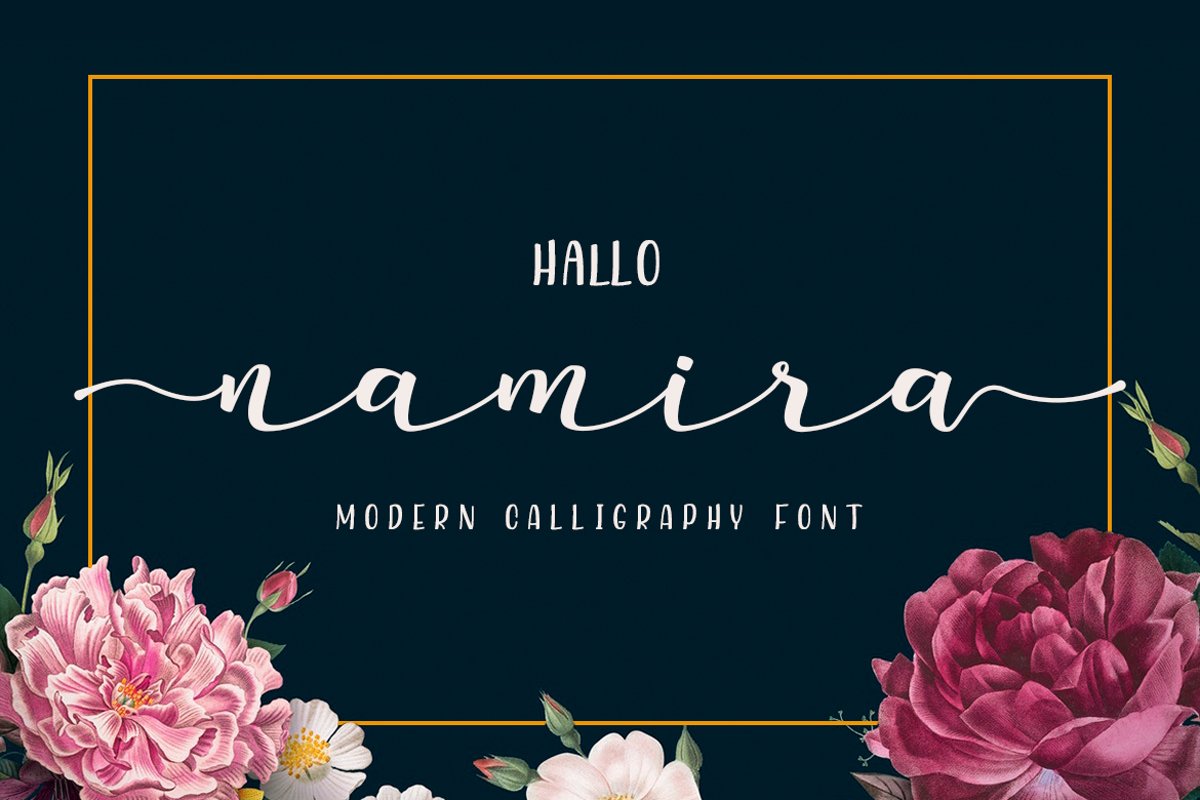
Namira | Modern Calligraphy Script Font
Namira
Namira is Handwritten Calligrapy Font that will turn your designs into simple and beautiful results. With PUA Encode, you can access a ton of alternates easily to create combination you like. This is font is perfect for wedding invitation, craft, decoration or any design which need a elegant look.
- Ligatures & Alternates